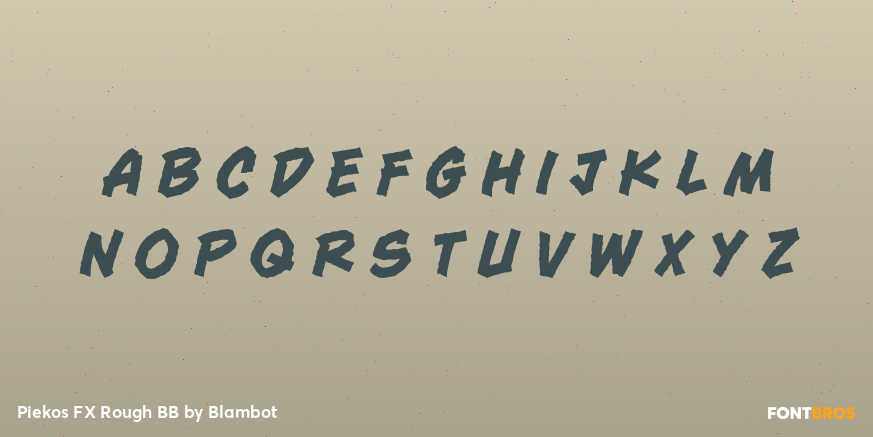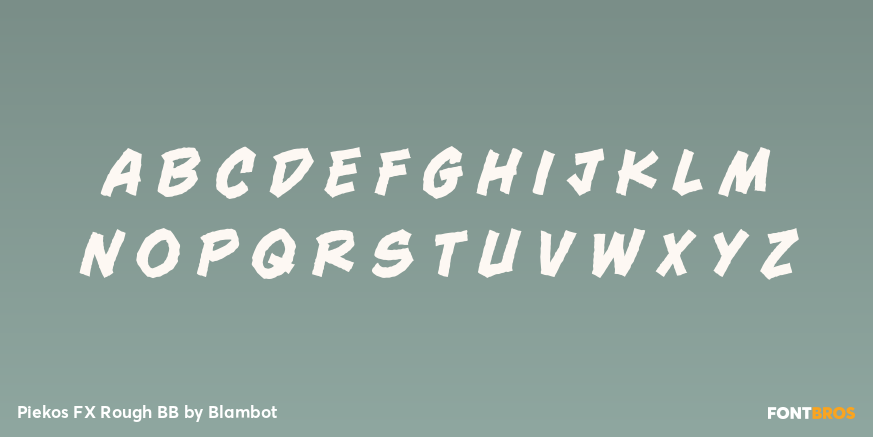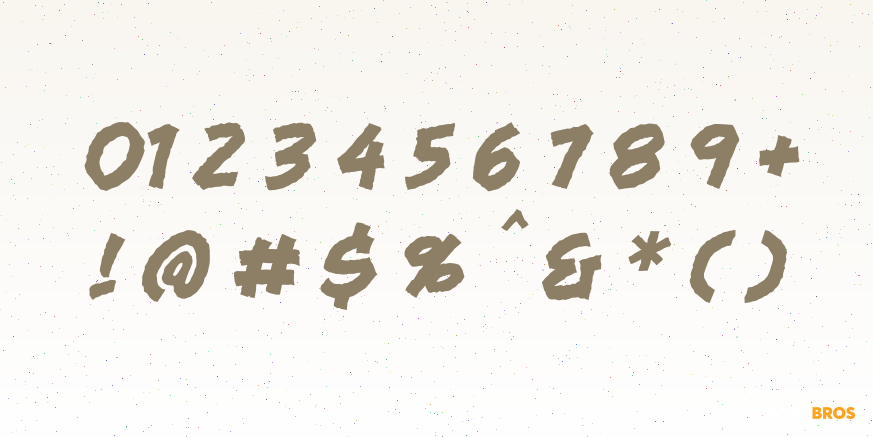
Piekos FX Rough BB
Font Family by Blambot
If you're a fan of PIEKOS FX, check out its new sidekick-- PIEKOS FX ROUGH!
Designed from Nate Piekos' hand lettered samples. PIEKOS FX ROUGH comes with Rough, RoughThin, and Brush. It has tons of European characters as well!